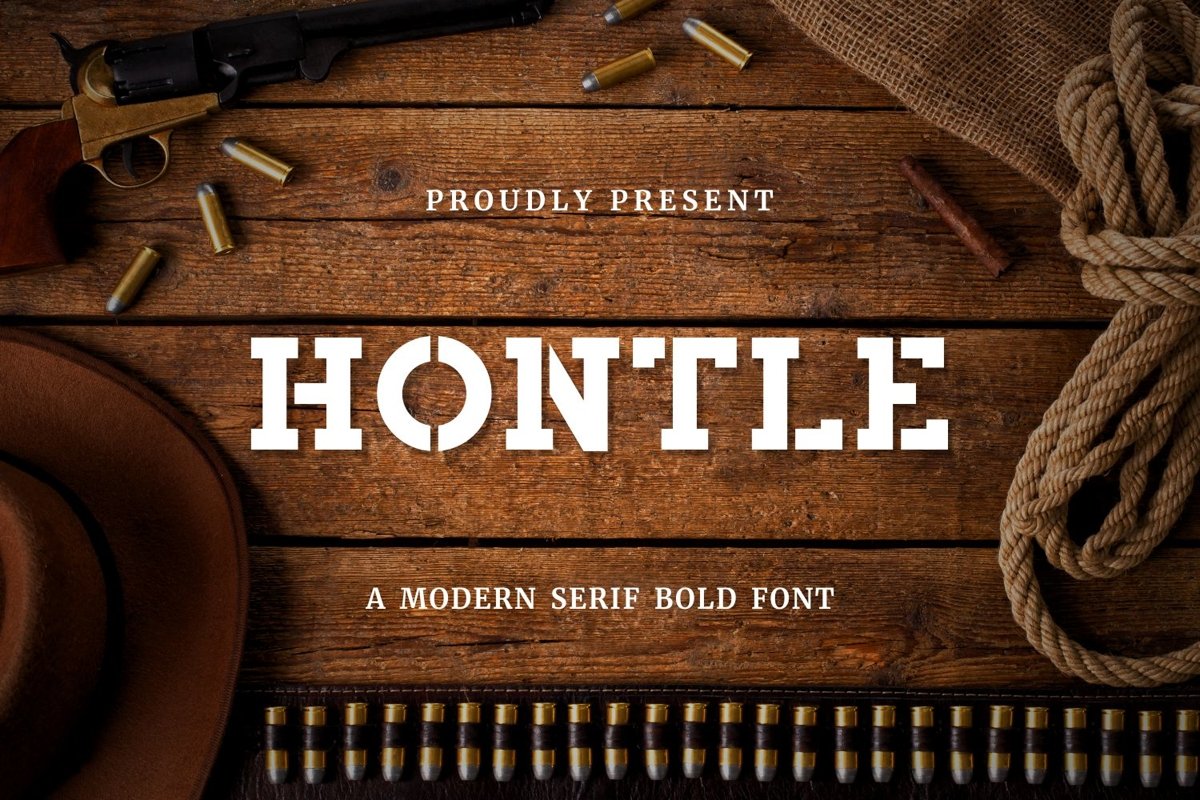
Hontle is a slab serif display come with modern themes. This font have unique characters. It matches applies in some designs such as the logotype, branding, packaging, quotes, poster, t-shirt, book, invitation and more custom design. The features uppercase, lowercase, numeral, punctuation & symbol, multilingual support, PUA encoded (fully accessible without additional design software).
Hontle